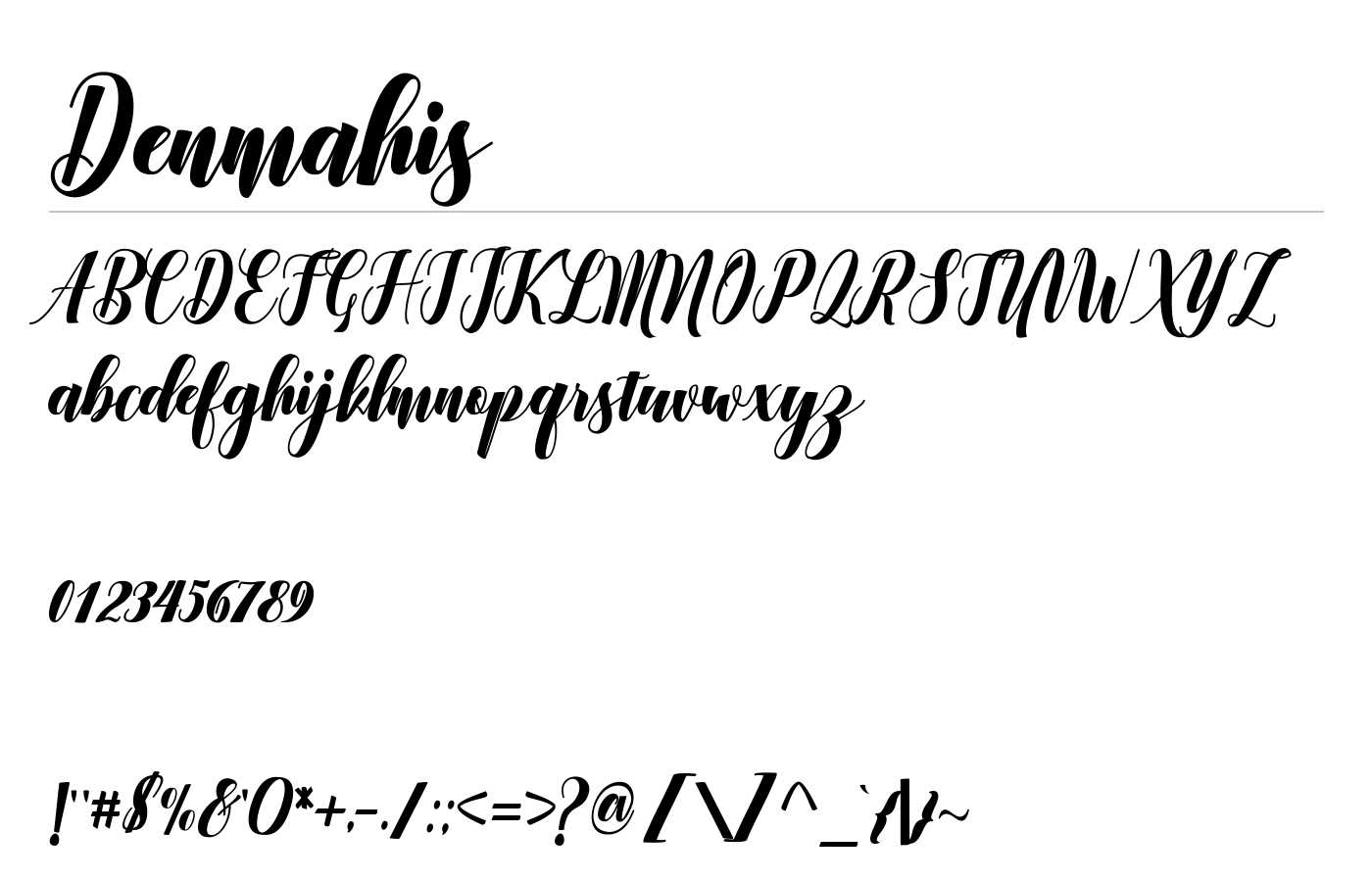
Denmahis Script Demo is an elegant, bold script font with smooth, flowing strokes and a high contrast between thick and thin lines, giving it a sophisticated yet lively feel. Its stylish letterforms with unique flourishes make it ideal for branding, invitations, and headlines where a touch of luxury and personality is desired. This font works best in creative and fashion-forward projects that seek to convey charm and elegance.
Denmahis Script Demo
About Denmahis Script Demo
| Font family | Denmahis Script Demo |